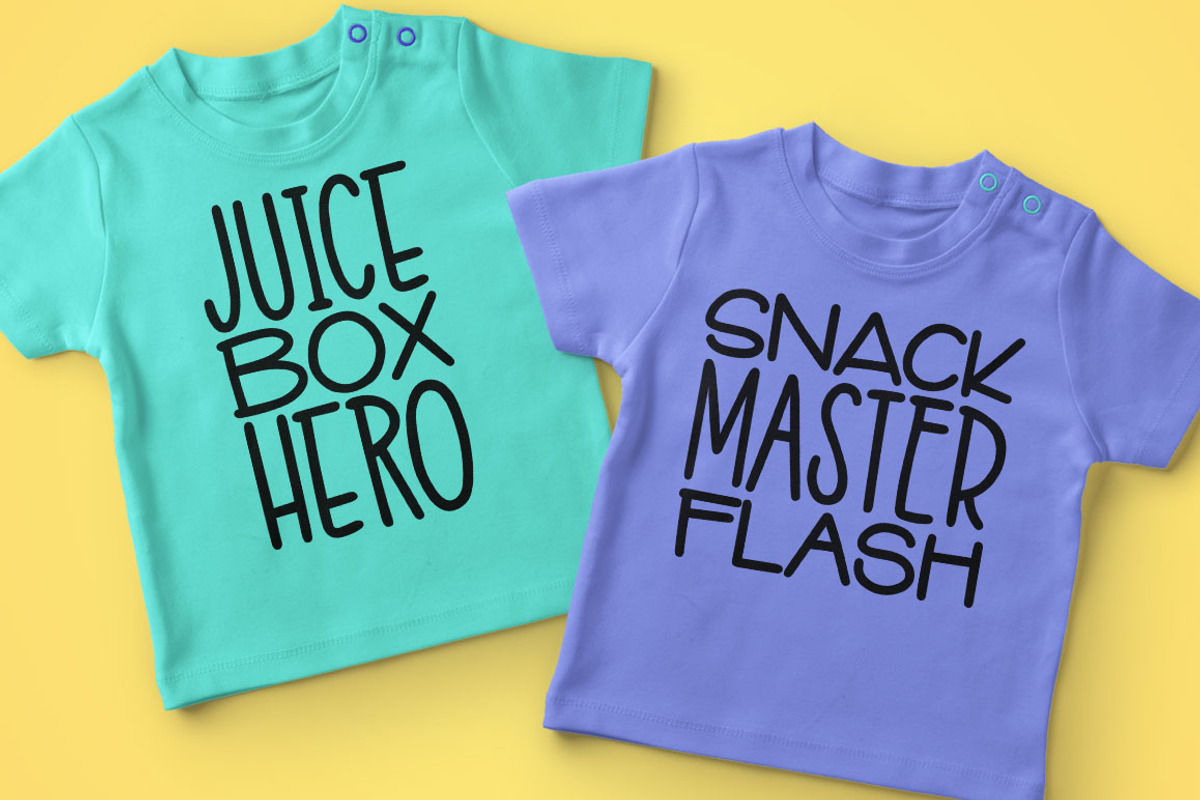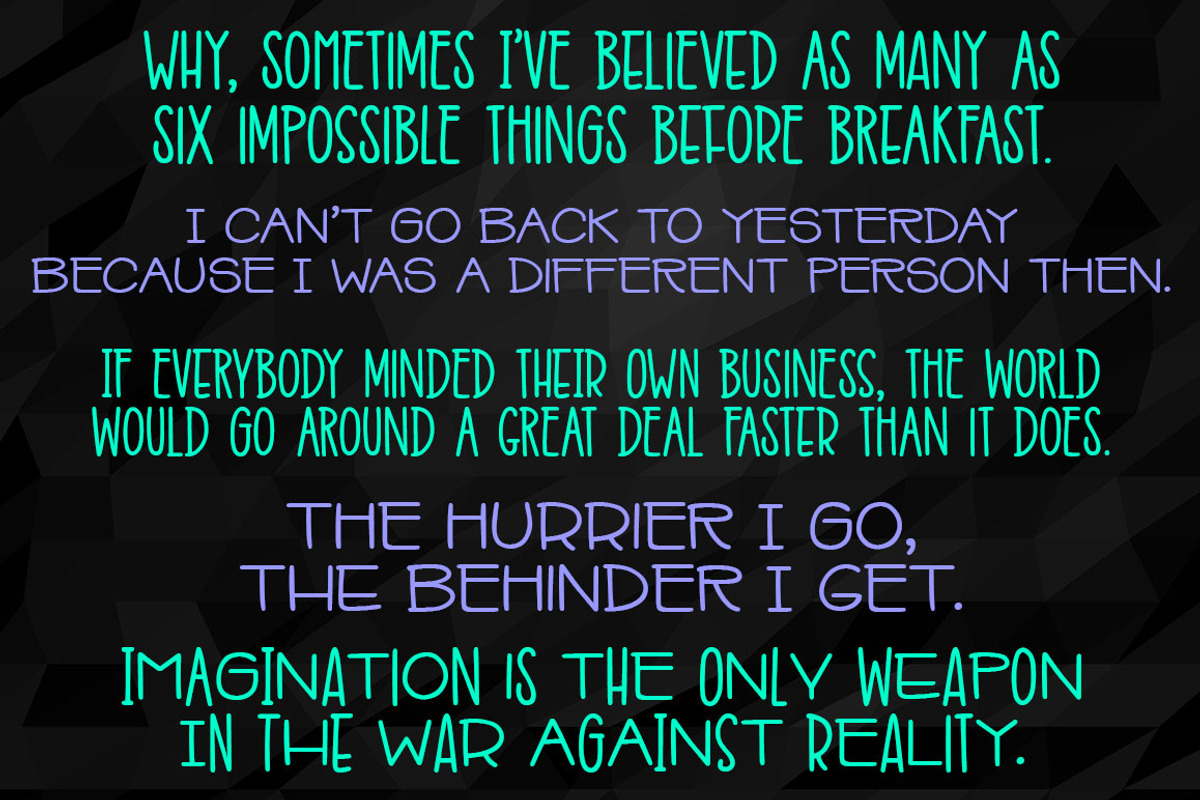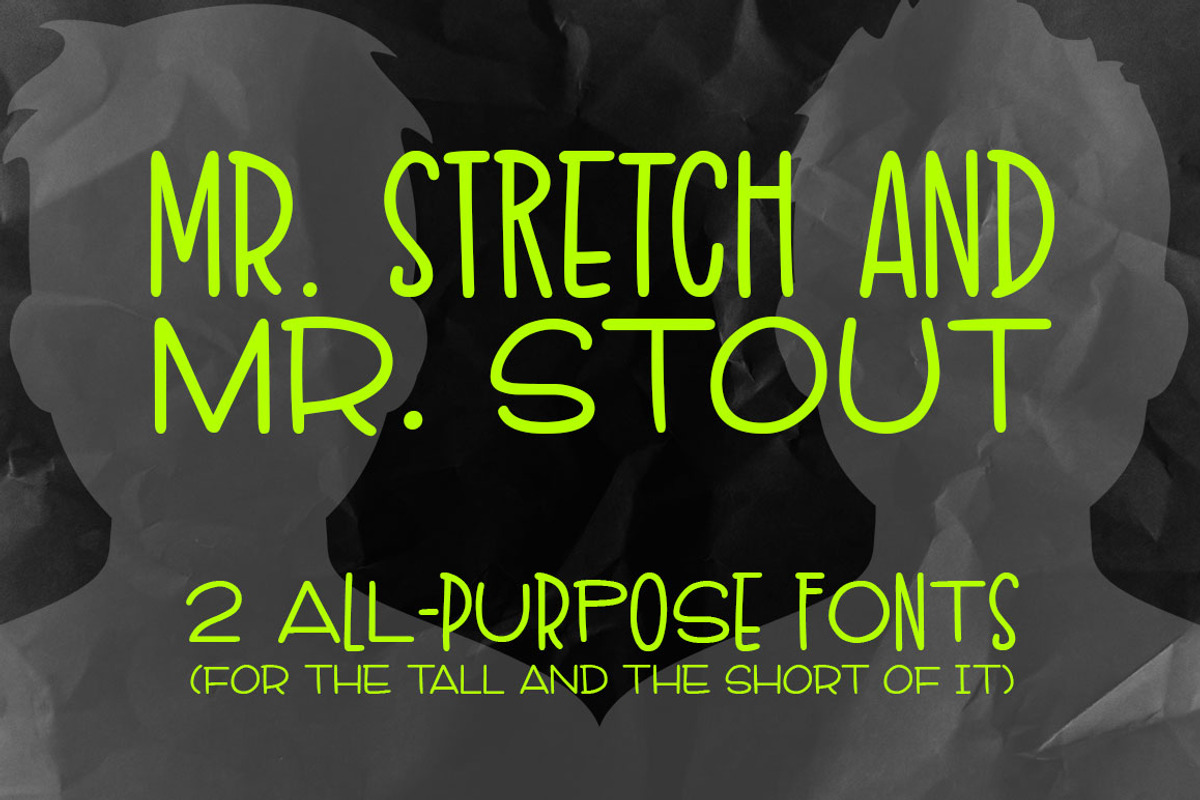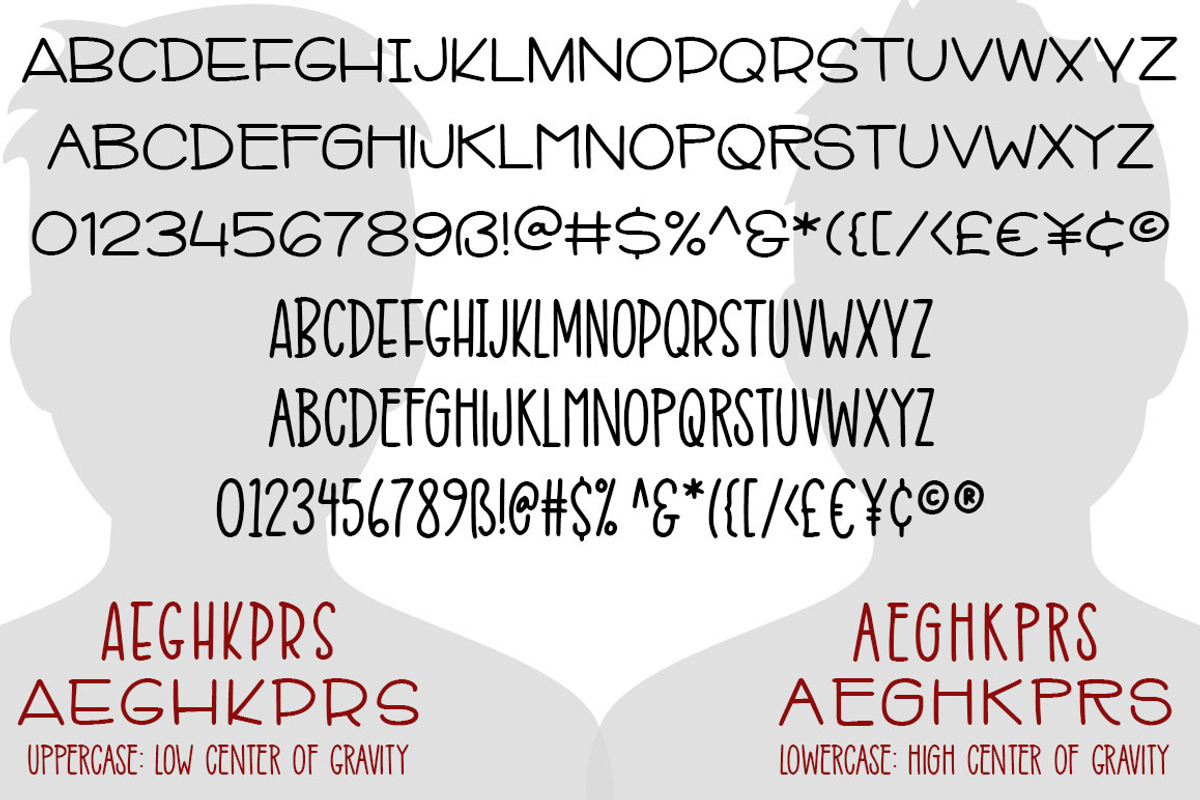
Mr. Stretch & Mr. Stout Fonts
Meet Mr. Stretch and Mr. Stout, two gallant fonts ready to help you out with all of your font projects.
They're two complete fonts written with the same pen, built to work well together. One tall and slender, the other short and sturdy, they stand beautifully on their own, but can also pair well with tons of other fonts! You can even switch back and forth between the two within the same word for a funky look.
The glyphs in both fonts have been extensively cleaned up to reduce superfluous nodes/points while keeping a hand-written look. They're great for crafting, printing, cutting, and more!
Mr. Stretch and Mr. Stout each come with:
Two full uppercase sets each: one with a high center of gravity, one with a low center
A full set of numbers and punctuation
Over 300 extended Latin characters for language support, including ß, Æ, æ, Œ, œ, Å, and å